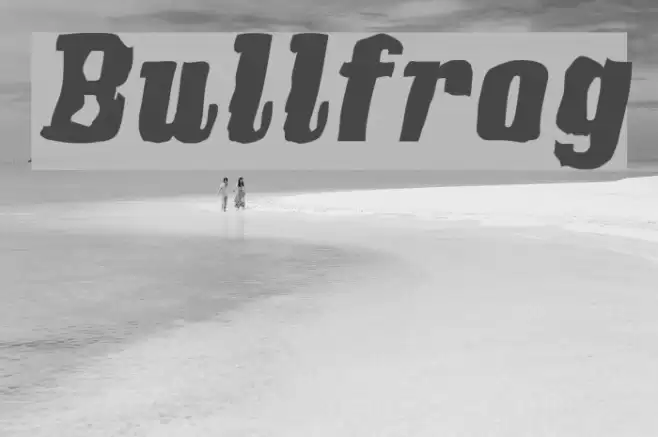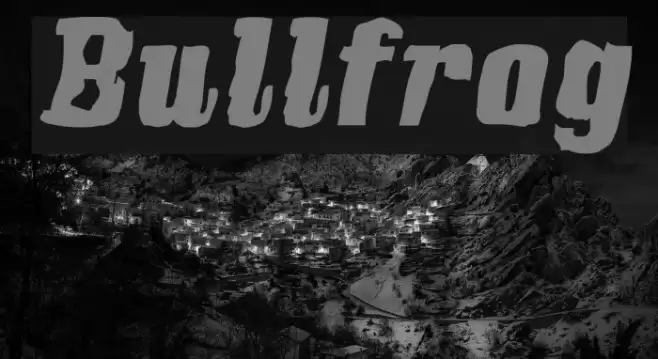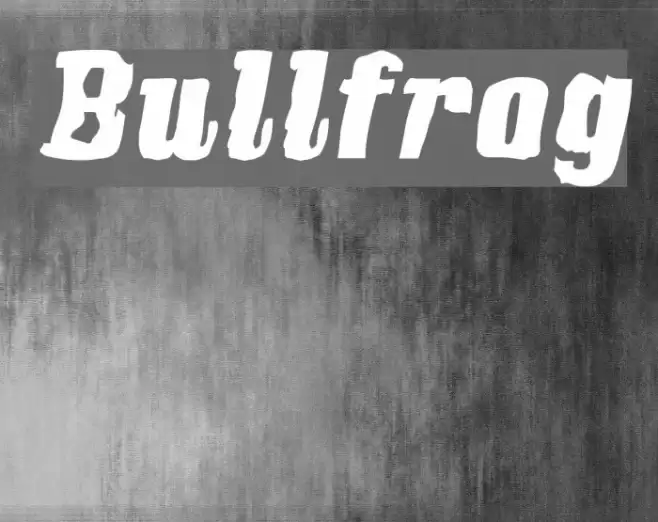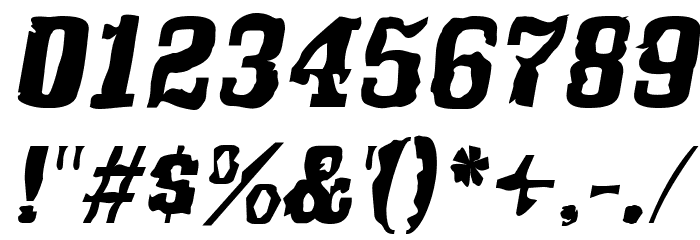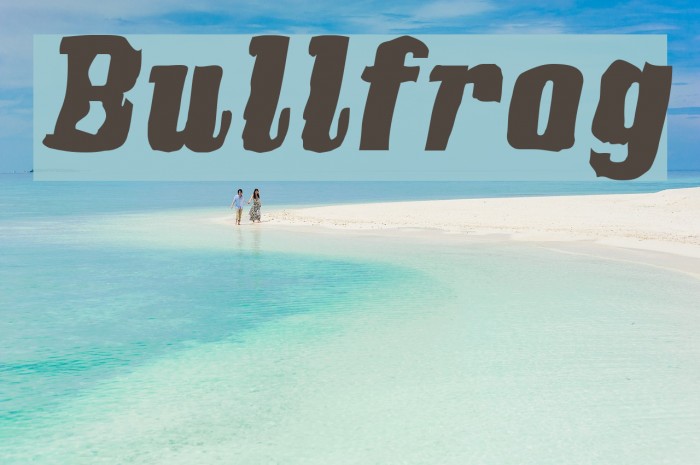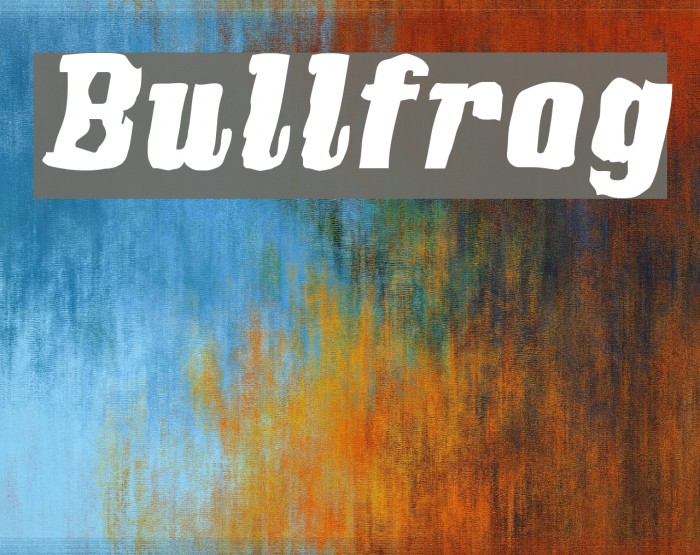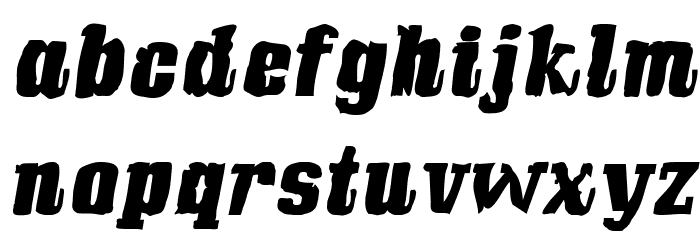
Bullfrog Font
Bullfrog Description
This font features a bold and dynamic style with a strong presence. The characters are designed with a slightly condensed width, giving them a compact and powerful appearance. The strokes are thick and exhibit a medium contrast, adding to the boldness of the font. The edges are sharp and angular, contributing to a modern and edgy look. The uppercase and lowercase letters maintain a consistent style, while the numerals and special characters are equally bold and striking. This font is well-suited for projects that require a strong visual impact.
A bold, dynamic font with sharp, angular edges and medium contrast from Uncategorized fonts.
- Proposed Projects: Ideal for posters, headlines, branding, and any design needing a strong visual impact.